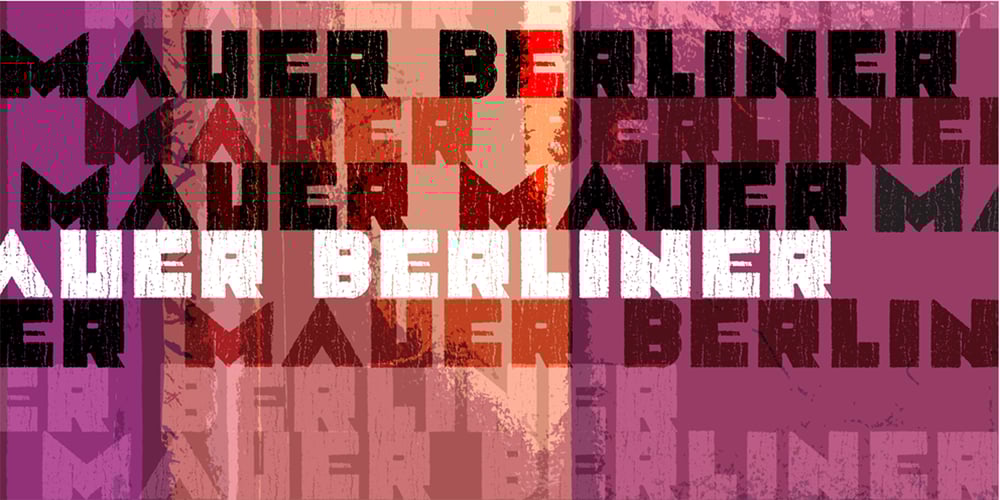
Mauer
Mauer font
Mauer Font Family was designed by published by Klaudia Krynicka. Mauer contains 3 styles and family package options. Mauer is a proportional, block, geometric font inspired by the advertisement in the polish weekly from 1937 “Tygodnik powszechny”. This typeface family contains 3 styles: Regular, Black and Italics.